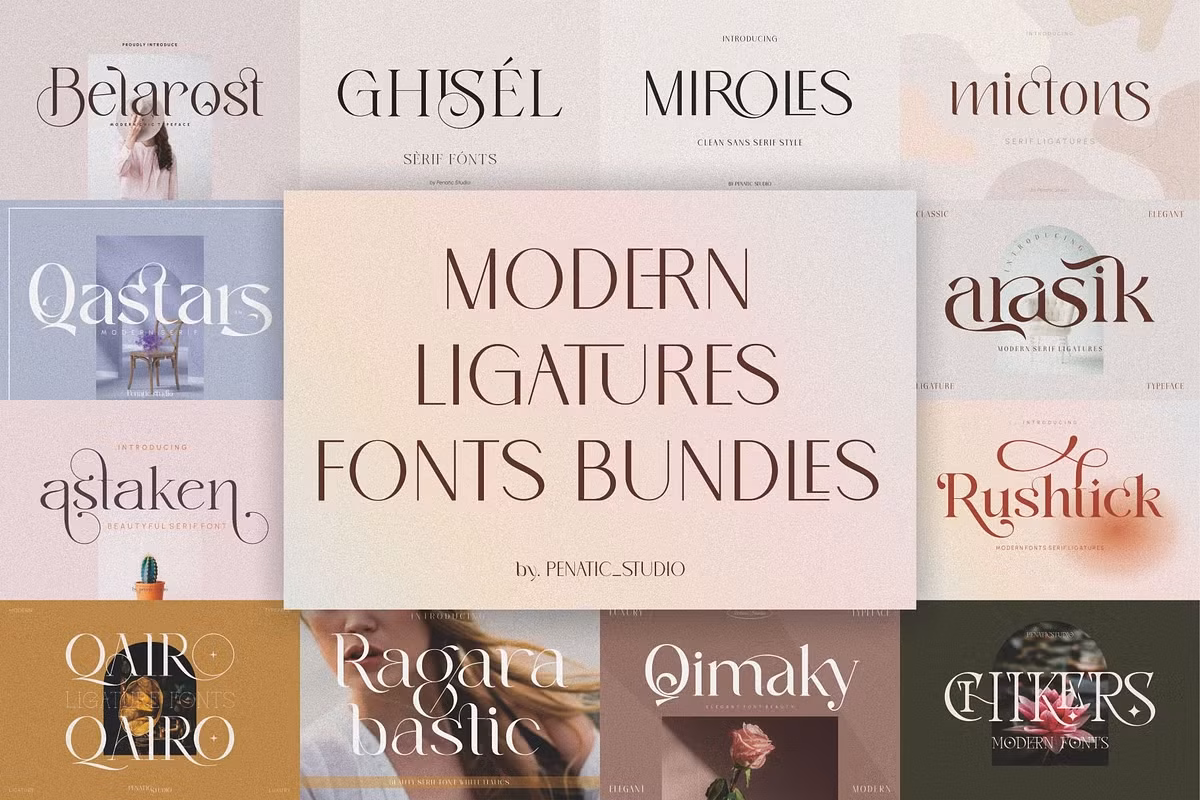
Please note that you must purchase this font bundle for commercial use. You can download Modern Ligatures Fonts Bundle for free, strictly for personal testing purposes only. The Modern Ligatures Fonts Bundle is a collection of stylish, modern fonts featuring elegant ligatures that seamlessly connect letters for a sophisticated and polished look. Perfect for branding, logos, invitations, social media graphics, and more, this bundle offers a variety of fonts that are ideal for creative projects that require both readability and flair.
The bundle includes a selection of modern serif and sans-serif fonts with unique ligatures, giving you the flexibility to create elegant typographic designs. It includes uppercase and lowercase letters, numerals, punctuation, and multilingual support, ensuring versatility across a variety of design needs.
Whether you’re designing a contemporary brand, creating custom invitations, or adding a sleek touch to your digital content, the Modern Ligatures Fonts Bundle offers a variety of styles to elevate your typography.